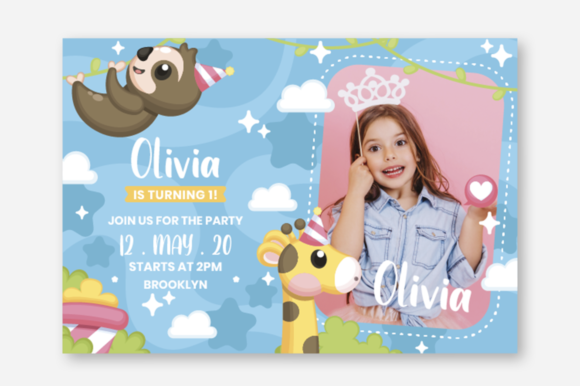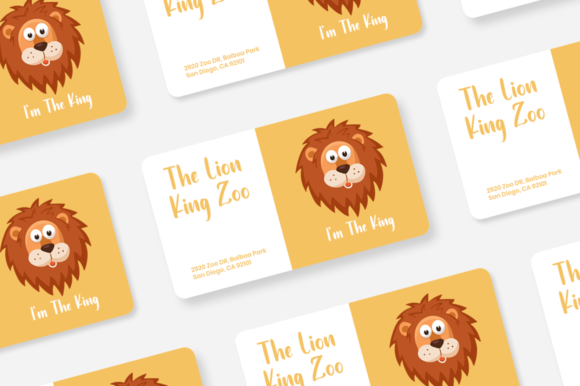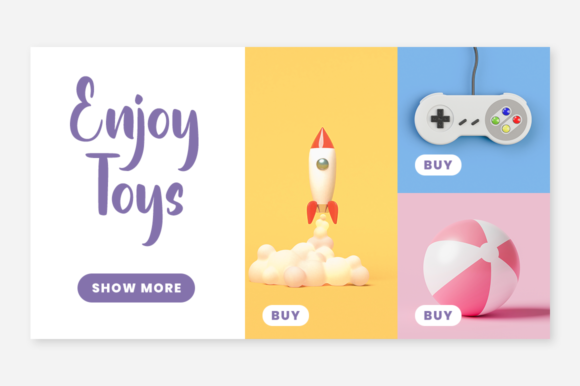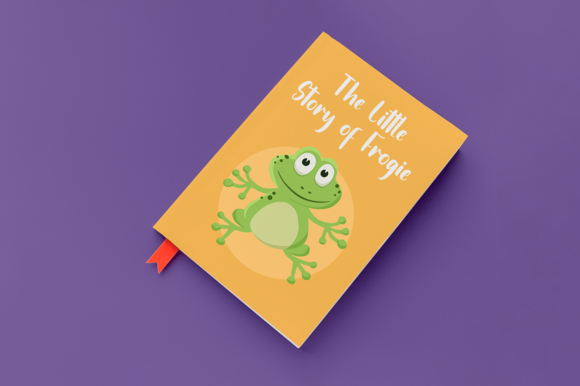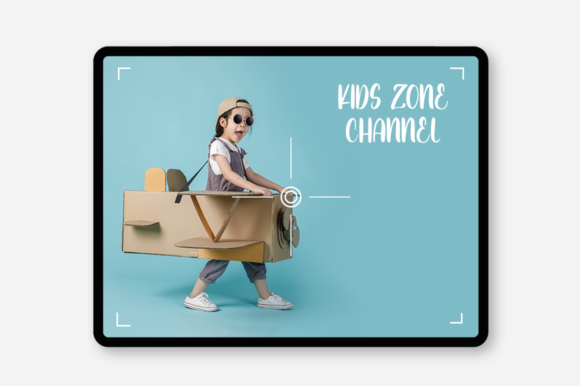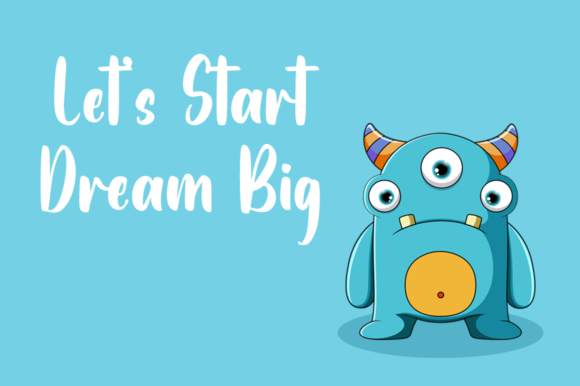
Introduction to Little Purple Font
Do you remember the thrill of creating a colorful poster for your child’s birthday party, only to realize the perfect font to match the excitement was nowhere to be found? That’s where the Little Purple Font comes in – a delightful and whimsical handwritten font designed to bring a smile to your face and a touch of magic to your creative projects.
As a valuable design resource, the Little Purple Font offers endless possibilities for designers, from crafting educational materials for kids to adding a playful twist to marketing campaigns. Its free download feature and transparent background make it an ideal addition to any project, ensuring seamless integration and a professional finish. Whether you’re working on a creative project or need a high-quality font for a specific design, the Little Purple Font is sure to deliver.
Key Features of Little Purple Font
- High-quality design resource perfect for creative projects, offering a unique and stylish look.
- Unique characteristics, such as its distinctive purple hue and elegant typography, set it apart from other fonts.
Honest Review: Little Purple Font
As a designer, I’m always on the lookout for high-quality design resources to enhance my creative projects. The Little Purple Font is one such resource that caught my attention.
What works well: ✨ This font is a great addition to any design project that requires a touch of elegance and sophistication. Its smooth, cursive lines make it perfect for creating beautiful headers and titles. The font is also available for free download, making it a great resource for designers on a budget.
- High-quality design with a transparent background
- Perfect for creative projects that require elegance and sophistication
- Smooth, cursive lines make it ideal for headers and titles
Limitations: ⚠️ While the Little Purple Font is a great resource, it may not be suitable for projects that require a bold, playful font. Additionally, the font may not be compatible with all design software, so be sure to check compatibility before using it in your project.
Overall, I’m impressed with the Little Purple Font. Its high-quality design and free download make it a great resource for designers. However, its limitations may make it less suitable for certain projects. With a little creativity, you can make the most of this font and elevate your design projects to the next level.
The Little Purple Font is ideal for creative projects that require a unique and eye-catching design. It’s perfect for logos, branding, and marketing materials, as well as presentations and documents that need a touch of creativity. The font’s high-quality design and transparent background make it a great choice for any design project.